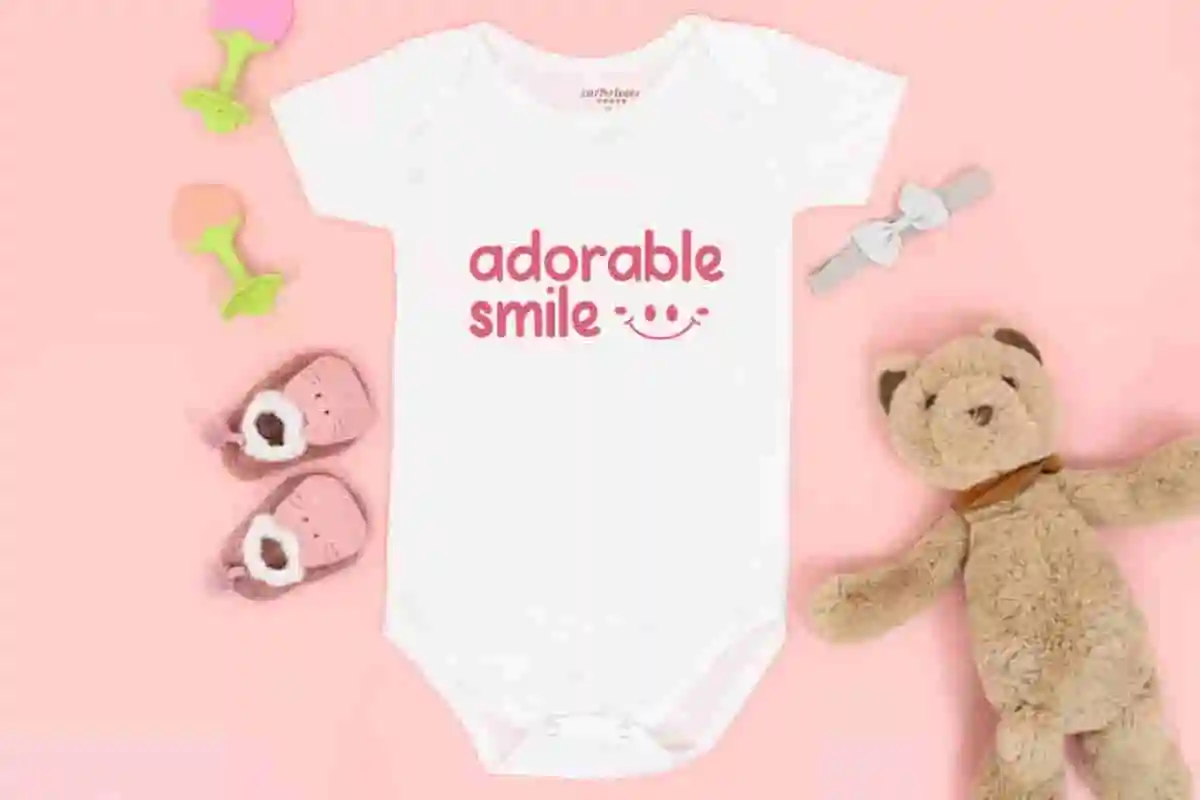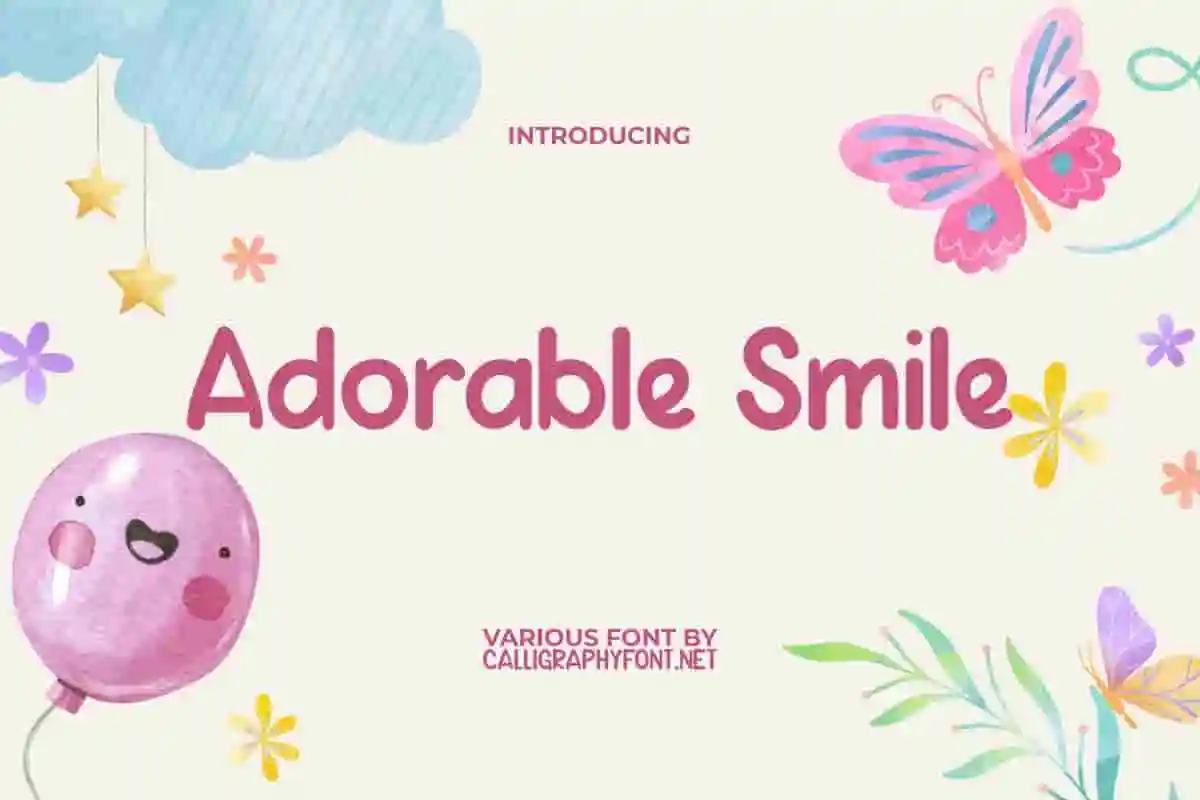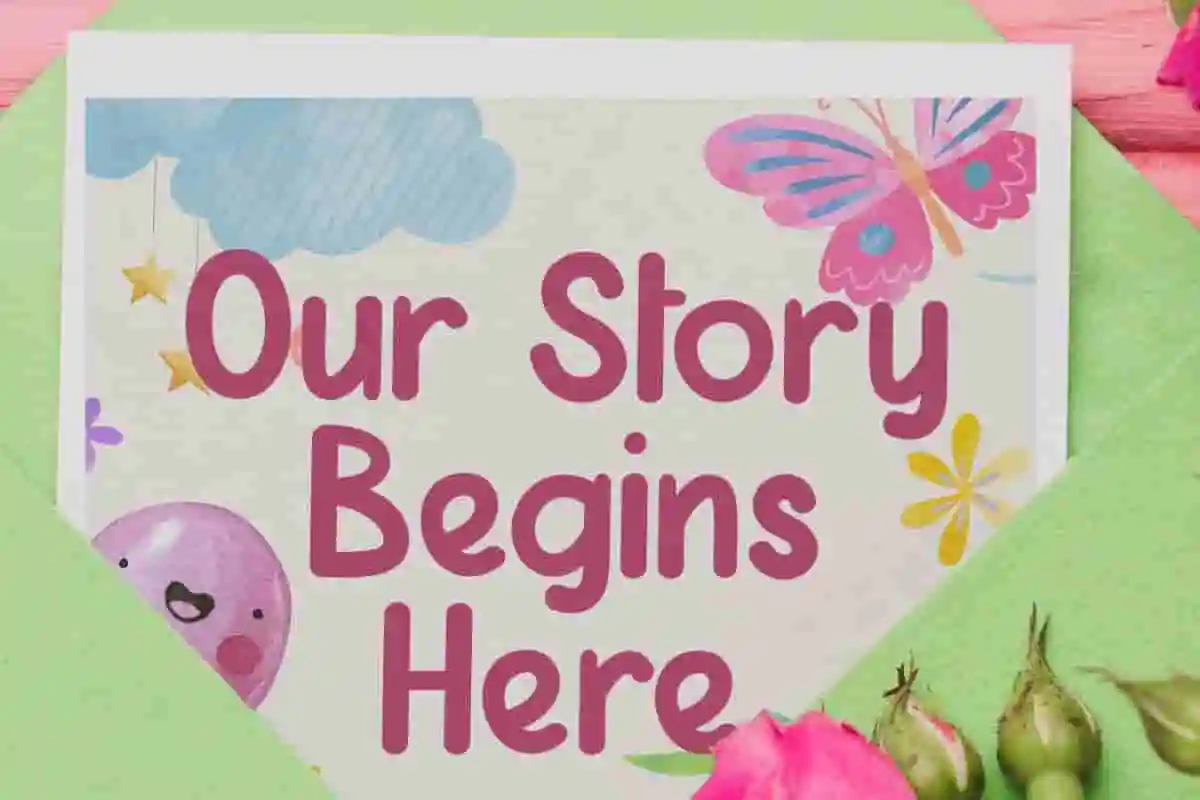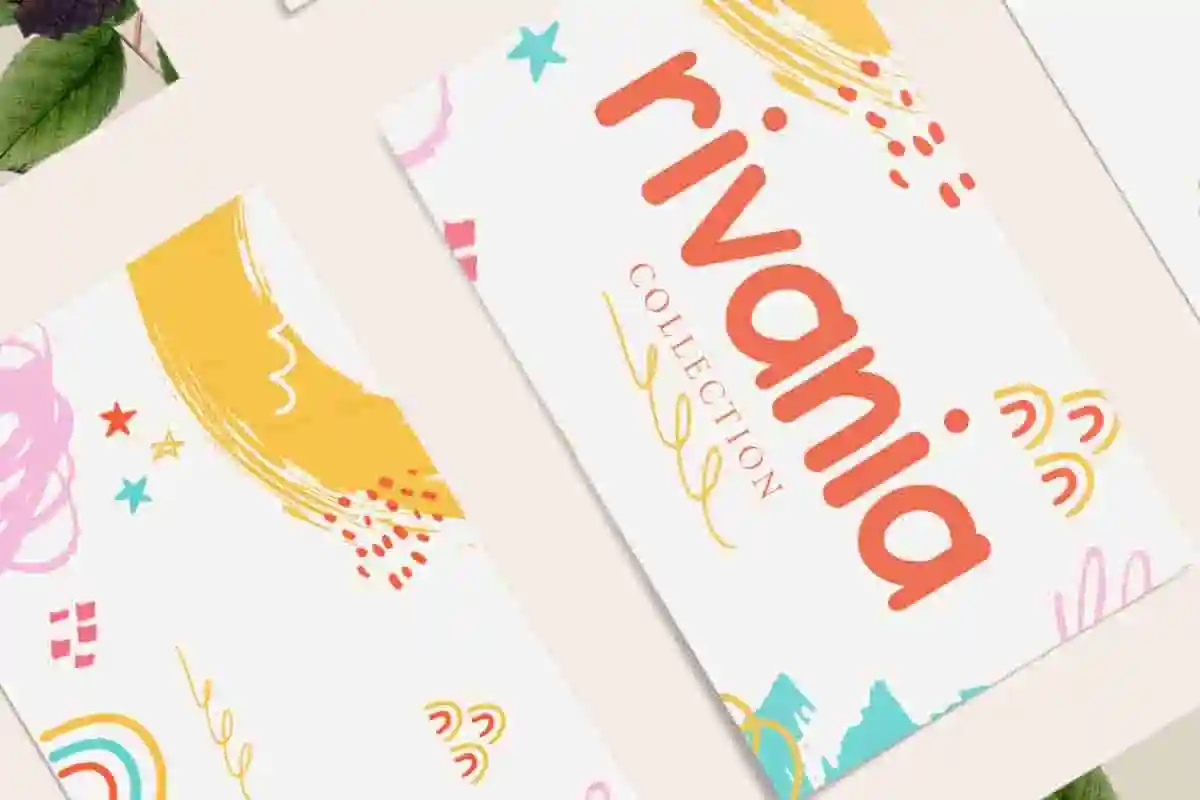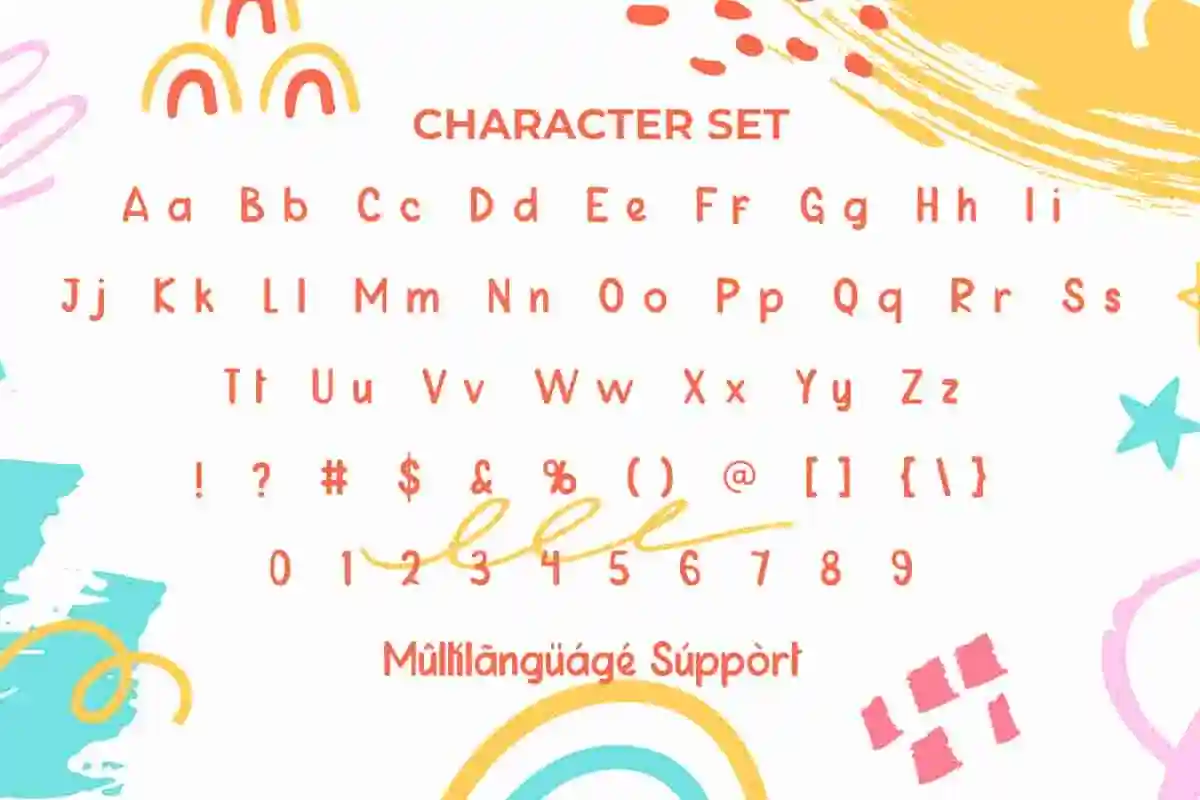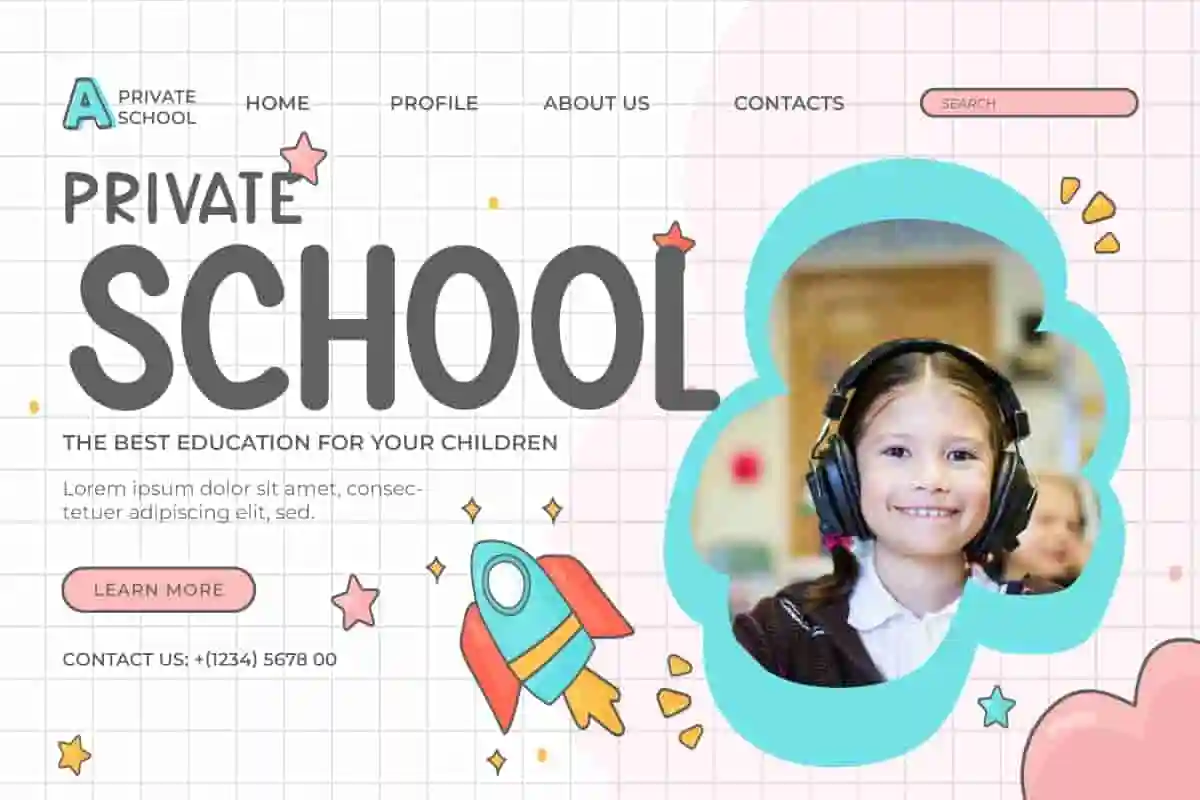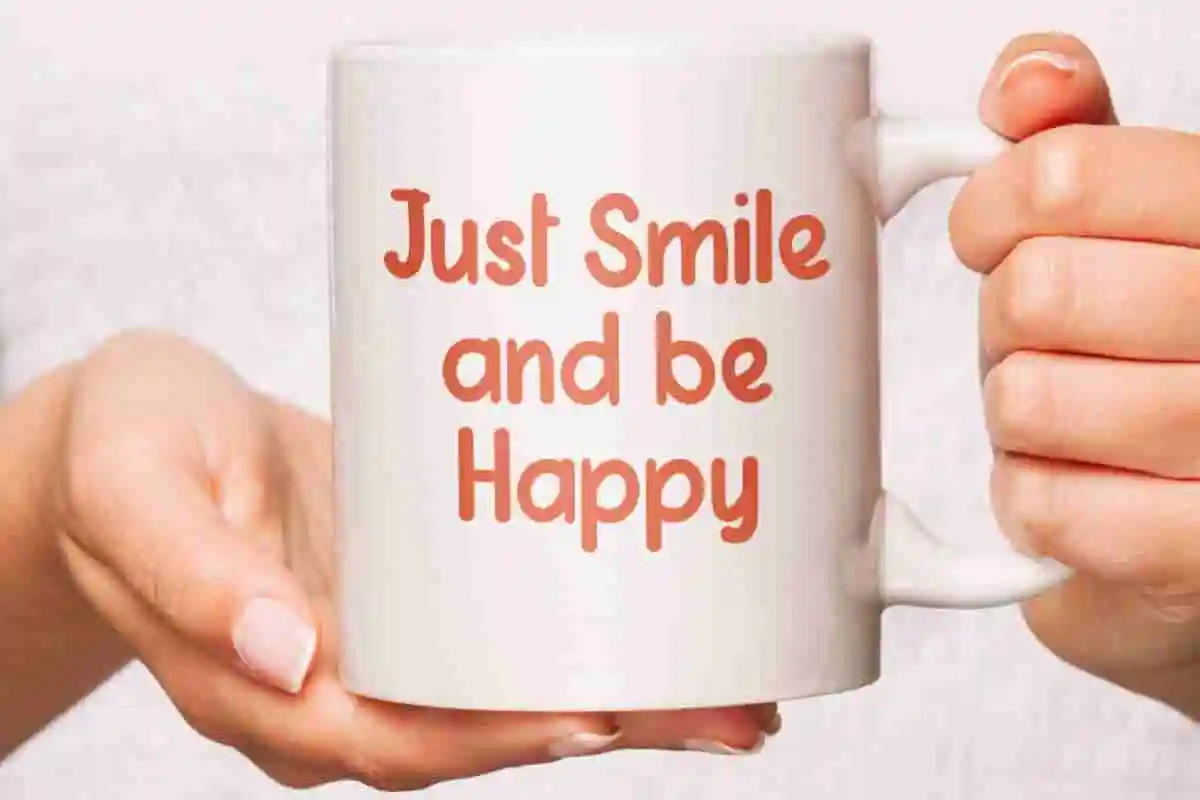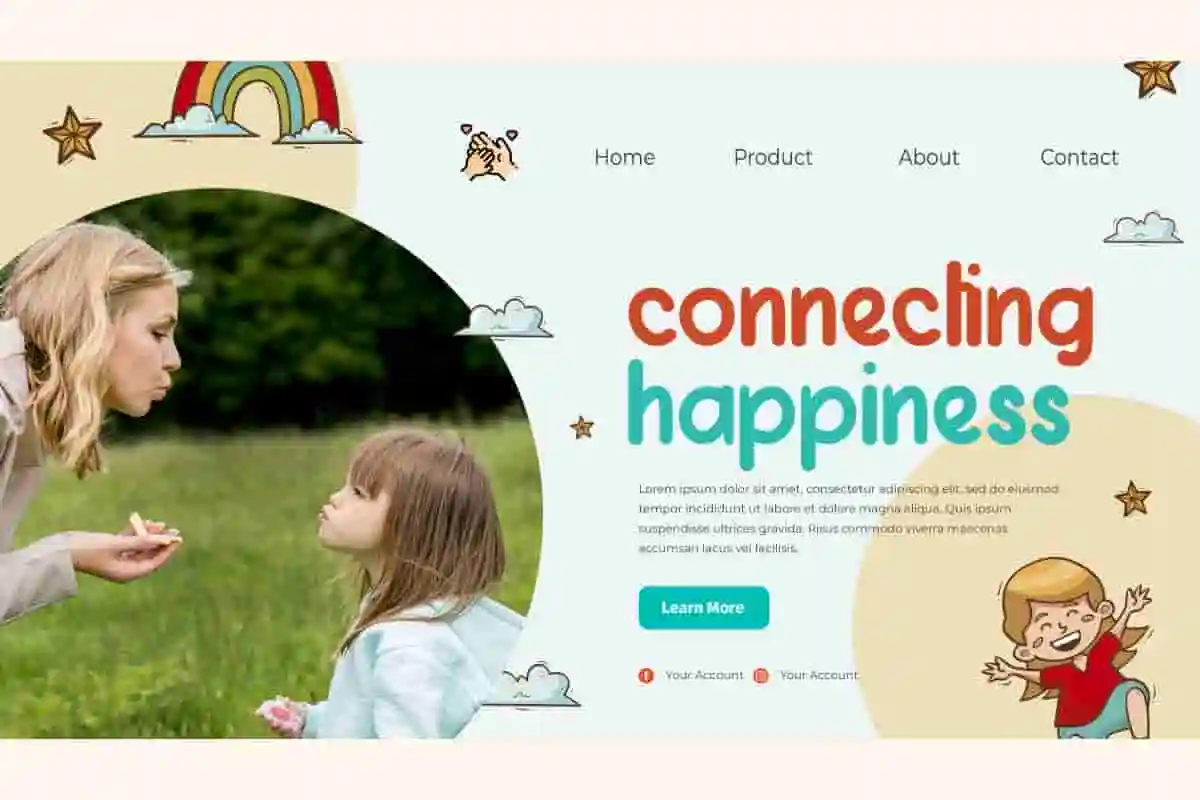
Adorable Smile Font
Adorable Smile Font is a cheerful display font with playful stylized letters inspired from children’s happiness. This font is specially designed for all things related to children brands but it will work fine for others too.
Adorable Smile Font is a cheerful display font with playful stylized letters inspired from children’s happiness. It combines softness in its own way that will be an important value for your design, such as all kinds of advertising purposes, blogs, business cards, cover design, flyer, greeting card design, header, headline, label, logos, menu brochure, mockup template, poster, product packaging, quotes, screen print, signs, stationery, sticker, title, watermarks, website, and more.
If you are searching for a font that radiates happiness, warmth, and creativity, Adorable Smile Display Font is the perfect choice. This playful decorative font is designed to add charm and positivity to any project, making your words truly come alive with character. Whether you are creating invitations, social media graphics, branding, or product packaging, Adorable Smile will leave a lasting impression.
With its hand-drawn, cheerful style, this font is perfect for projects that need a touch of friendliness and fun. Designers, crafters, and small business owners love how versatile Adorable Smile is—it works beautifully for greeting cards, children’s books, posters, T-shirts, stickers, and even logos. Its unique shapes and smooth curves are not only eye-catching but also easy to read, ensuring your message shines in every design.
Adorable Smile Font is more than just a typeface—it’s a creative tool that helps you tell your story with joy. Each letter is crafted with attention to detail, giving your work a natural and lively vibe. Whether you’re designing for personal use or professional projects, this font ensures your designs stand out from the crowd.
Adorable Smile Display Font is an original hand drawn fun typeface. It really gives an adorable shape because each corner is rounded to represent cute letters. This font is ideal for whatever your business background, such as baby fashion, cake shop, event organizer,  fashion, film, food and drinks brands, graphic design, homeware, kindergarten, movie, photography, printing, publishing, restaurant, school, storybook writer, summer camp, toy store, etc.